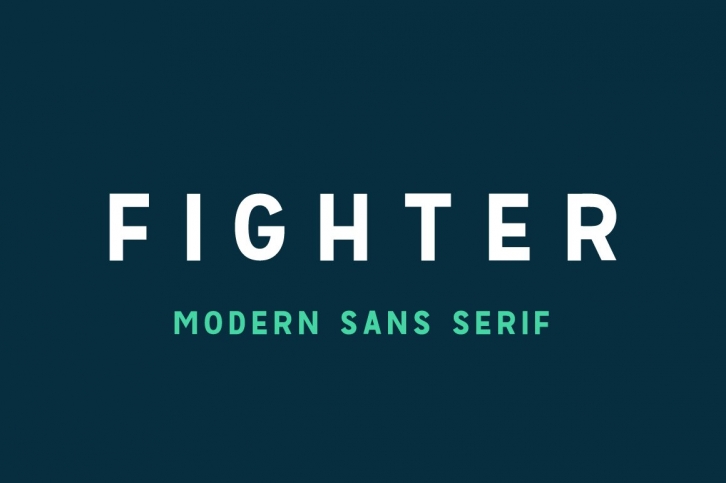
FIGHTER
A handcrafted modern sans serif font. Perfect for all purposes. Would work great for logos, cards, posters, headers and more! Pairs well with condensed sans serifs. For the "w" and "v" the lowercase and uppercase versions are different for kerning (spacing) purposes :)